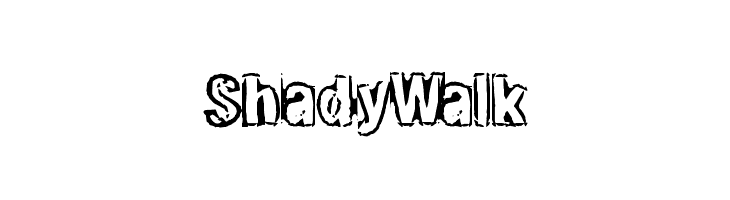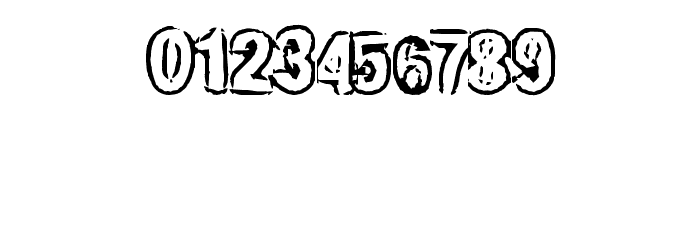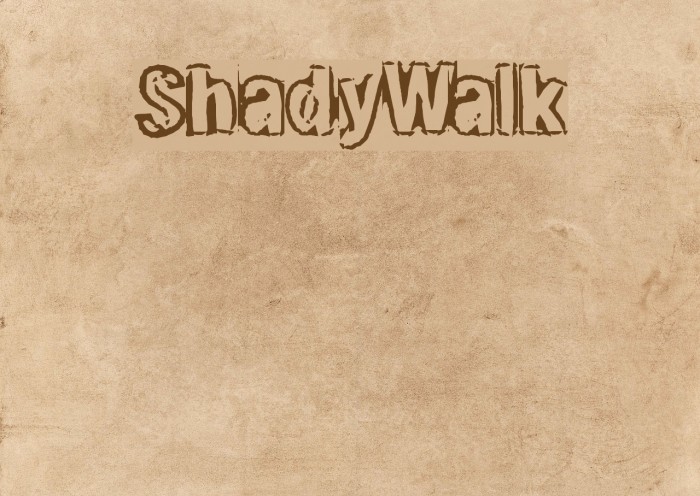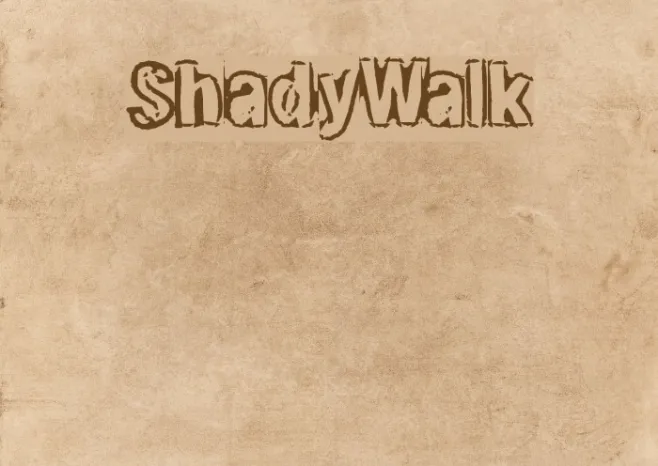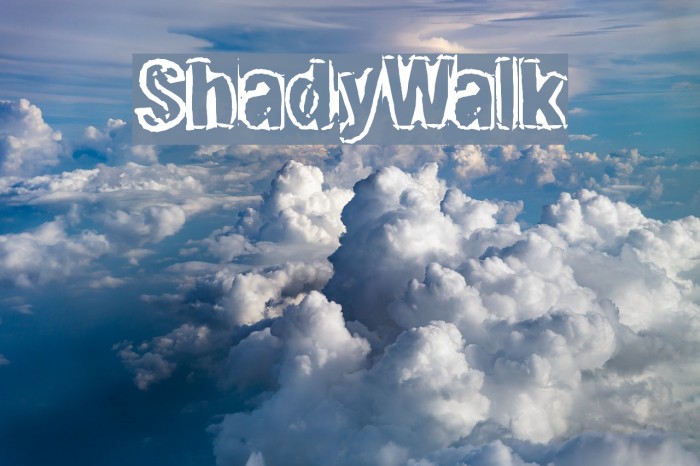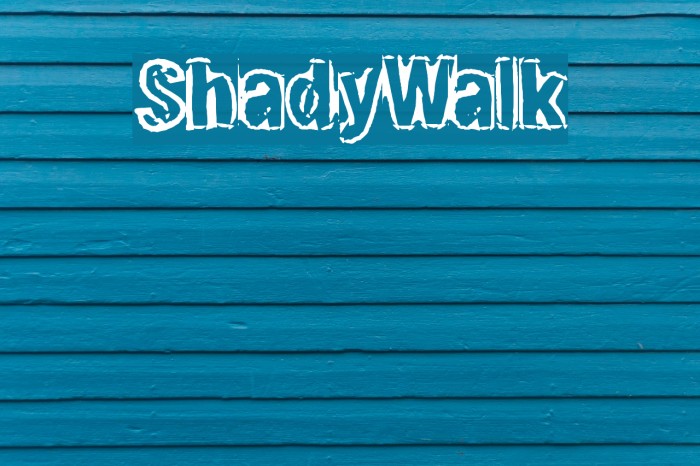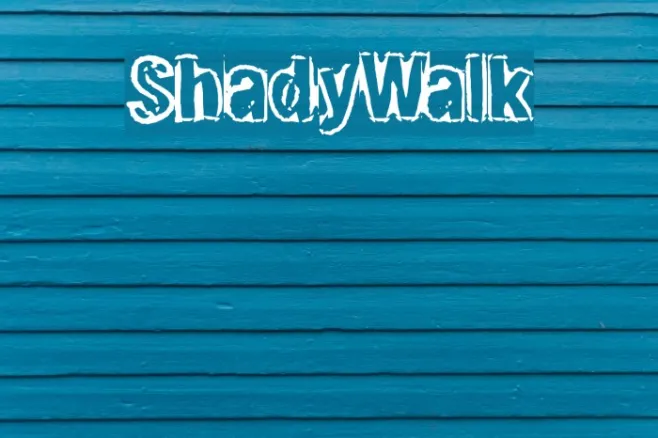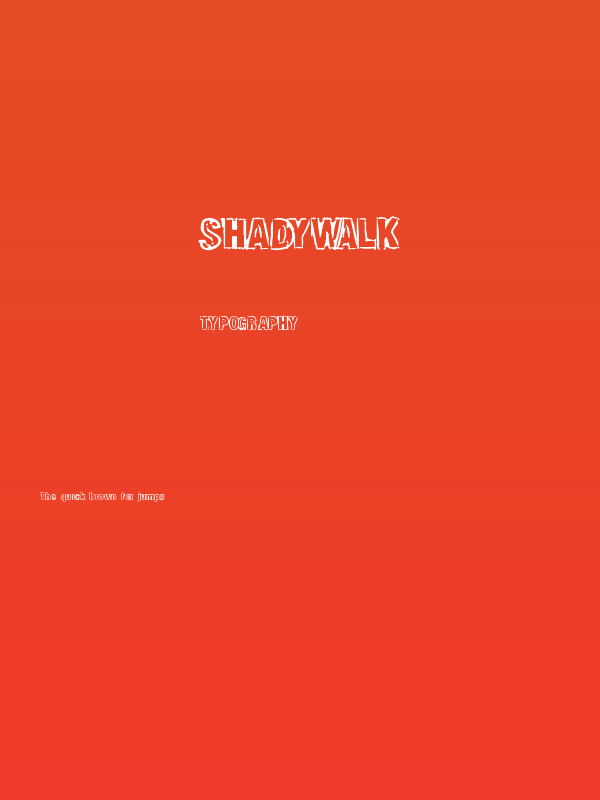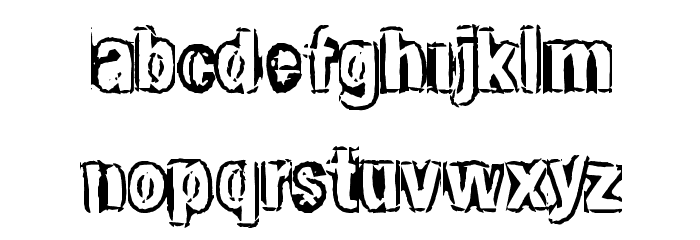
ShadyWalk Font
ShadyWalk Description
This font features a bold and distressed style, characterized by its rough, textured edges that give it a hand-drawn appearance. The uppercase and lowercase letters maintain a consistent width, creating a uniform look across the typeface. The numbers and special characters share the same rugged aesthetic, making them stand out with a unique flair. The font's design is reminiscent of graffiti or street art, with a playful yet edgy vibe. Its bold presence makes it ideal for eye-catching designs where a strong visual impact is desired. The irregularities in the strokes add a dynamic and energetic feel, perfect for projects that require a touch of creativity and individuality.
Proposed ProjectsIdeal for posters, album covers, streetwear branding, and urban-themed designs.